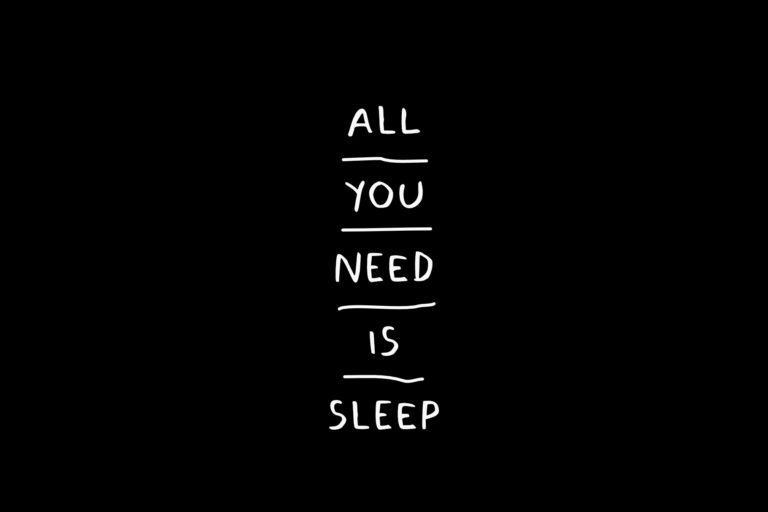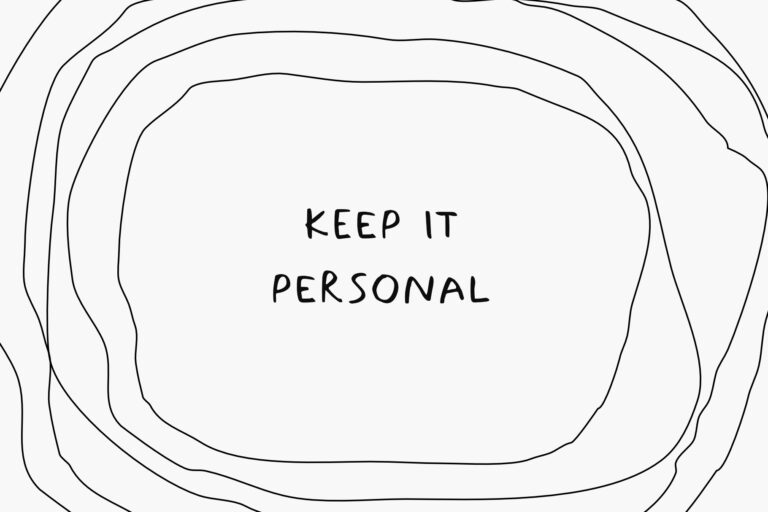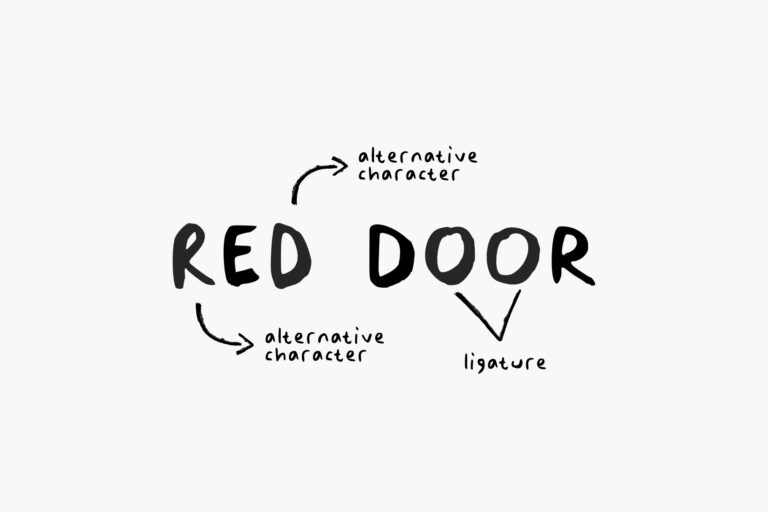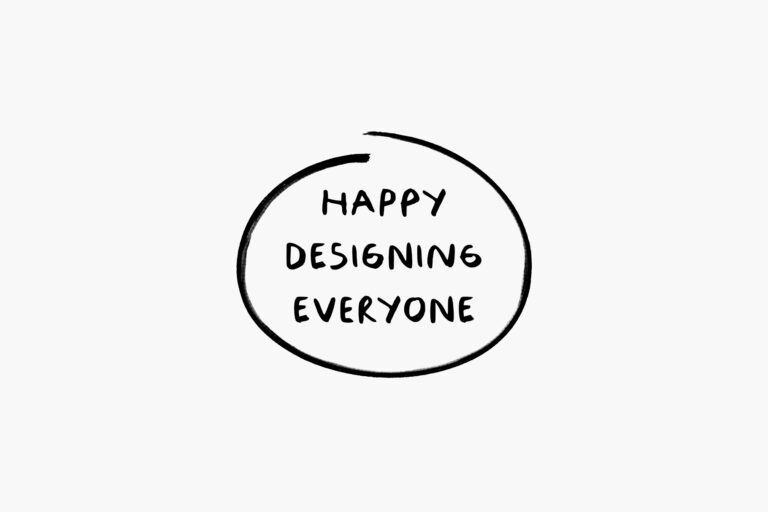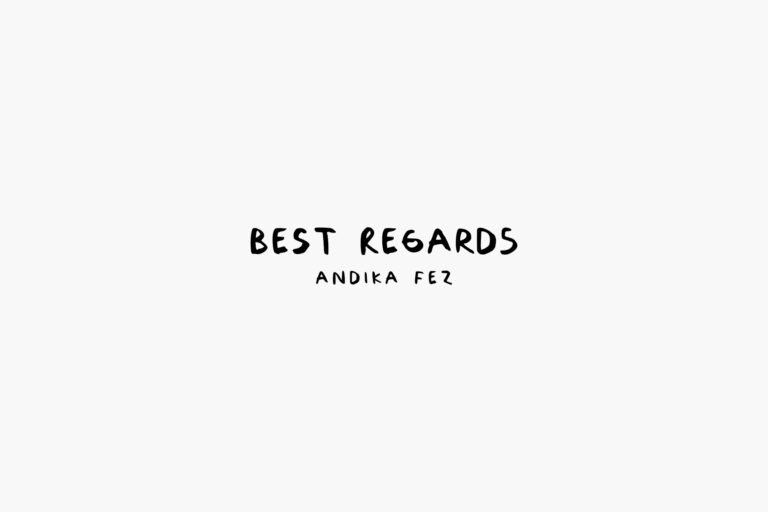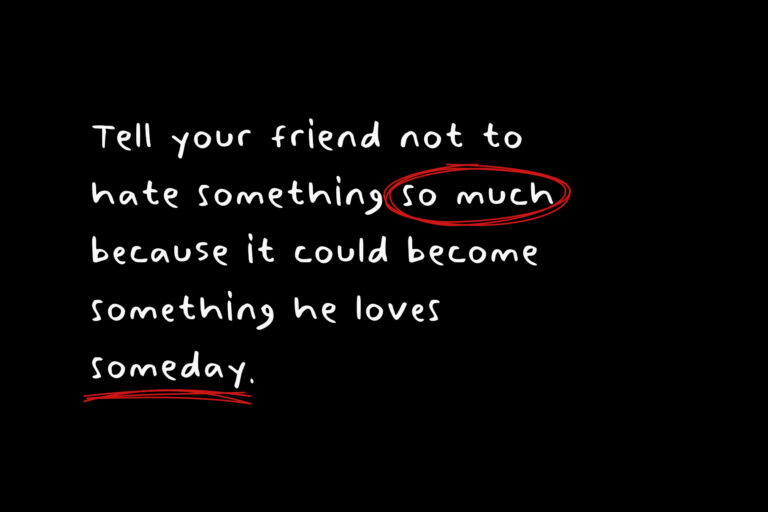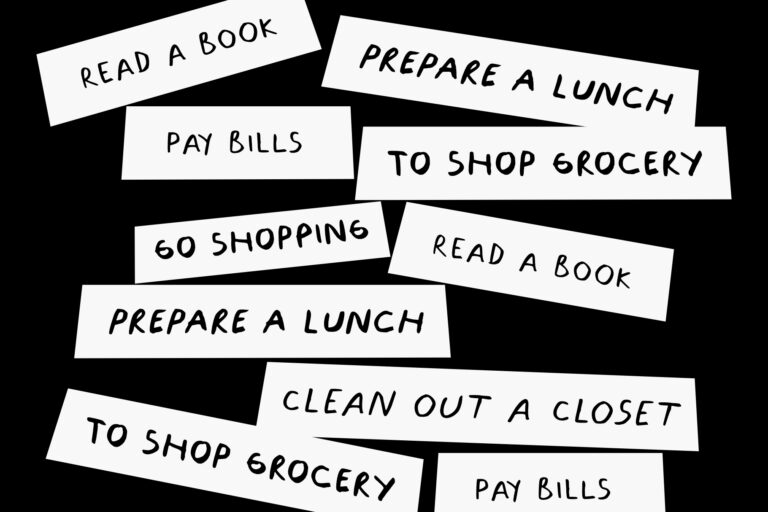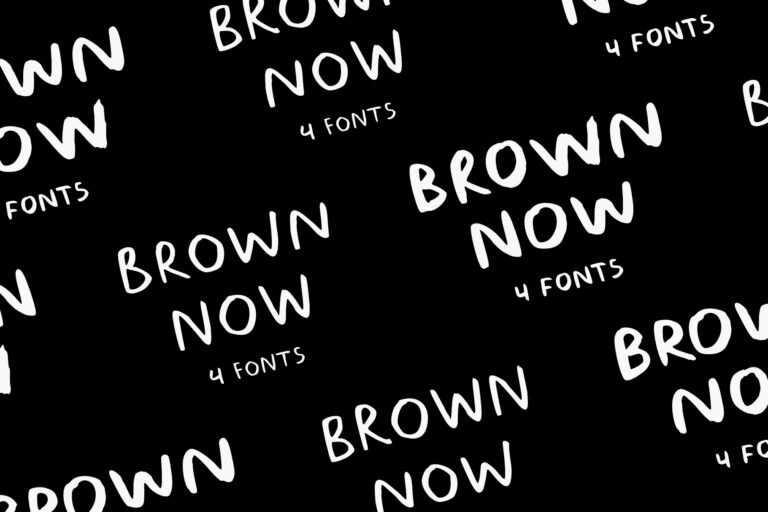
This is Brown Now font, A handwriting font designed directly on paper which will give you an unique experience when you type with it. Download this font right now and change the world with your words.